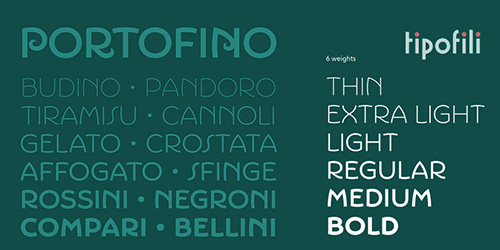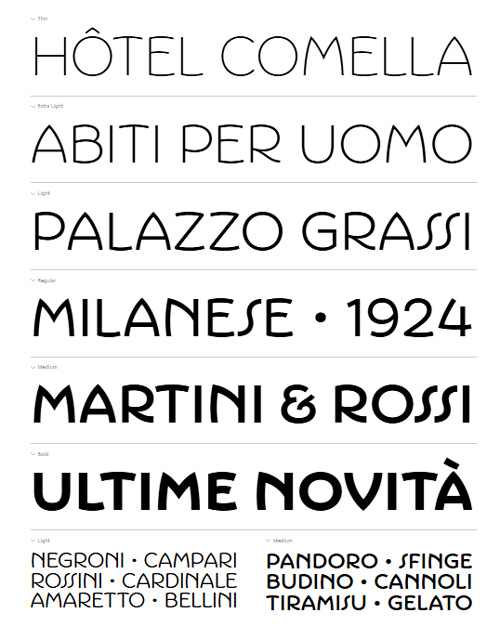
Portofino - 6 Static Styles + 1 Variable
- Influenced by Italian hand-lettered posters from the early twentieth century, Portofino is a charming display typeface with expressive forms complementing its underlying geometric proportions. True to the variety and quirkiness of the reference material, Portofino supports an extensive array of swashes and stylistic alternates.